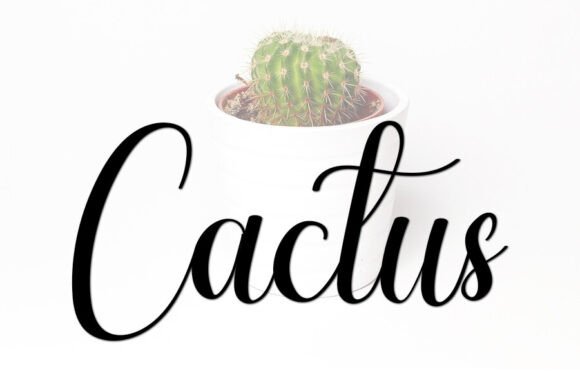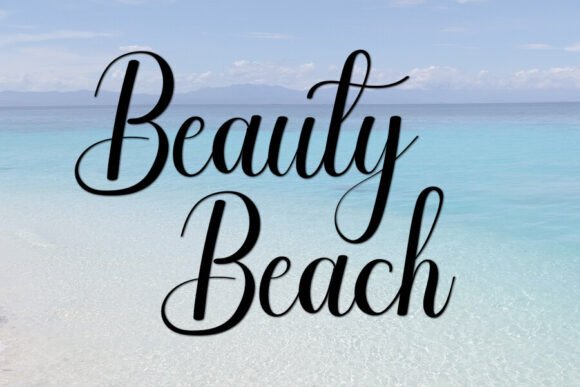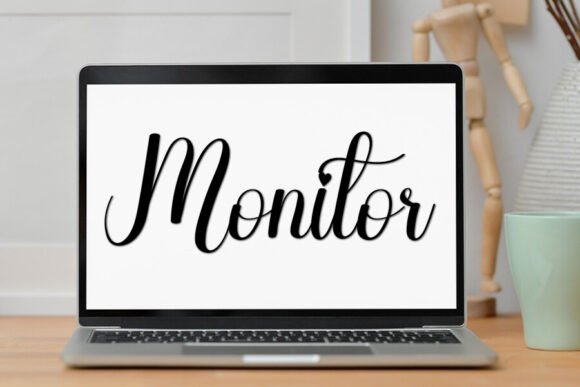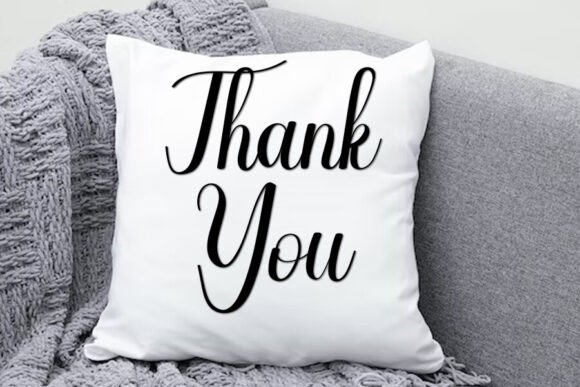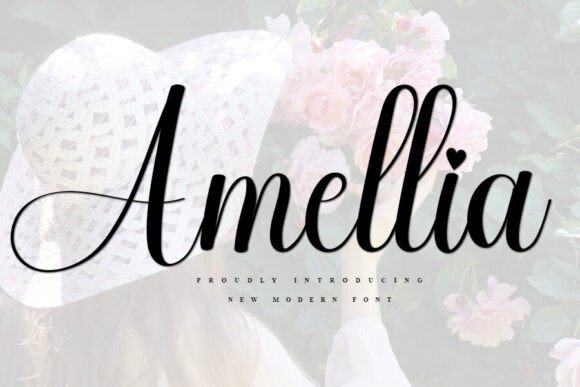
Discover the Elegance of Amellia Font: A Designer’s New Best Friend
I’ll never forget the time I was working on a wedding invitation project, and my client asked for a font that was both elegant and playful. I scoured the internet, tried out dozens of fonts, but nothing seemed quite right. That was until I stumbled upon Amellia Font. It was like a breath of fresh air – simple, yet sophisticated, and it perfectly captured the essence of the wedding’s theme. In this article, I’ll share my journey with Amellia Font, its features, and how you can make the most of it in your designs.
A Personal Review of Amellia Font
What I Love About Amellia Font
• ✨ Fresh and Elegant Design: Amellia Font has a unique charm that makes it perfect for a wide range of design applications, from YouTube banners to wedding invitations.
• ✅ Versatility: This font is incredibly versatile and can be used for both digital and print designs, making it a great addition to any designer’s toolkit.
• 💡 Easy to Read: Despite its elegant design, Amellia Font remains highly legible, even at smaller font sizes.
While Amellia Font is an excellent choice for many design projects, there are a few things to keep in mind:
• ⚠️ Limited Availability of OpenType Features: Compared to some other fonts, Amellia has a more limited set of OpenType features, which might restrict some advanced typographic designs.
• 🤔 Not Ideal for Body Text: Due to its elegant and slightly decorative nature, Amellia Font might not be the best choice for lengthy body text. It’s better suited for headings and titles.
The Story Behind Amellia Font
Amellia Font was designed with the goal of creating a typeface that embodies both freshness and elegance. The designer aimed to craft a font that would be versatile enough for various design applications while maintaining a unique aesthetic appeal. The result is a font that stands out with its refined simplicity and distinct charisma.
Q: What makes Amellia Font unique?
A: Amellia Font’s uniqueness lies in its ability to balance freshness with elegance, making it suitable for a wide range of design applications.
Q: Is Amellia Font suitable for body text?
A: While Amellia Font is elegant and legible, it’s better suited for headings and titles. For body text, consider a font with more traditional typographic features.
Q: Can I use Amellia Font in both digital and print designs?
A: Absolutely! Amellia Font is versatile and works well in both digital and print designs, making it a great addition to any designer’s toolkit.